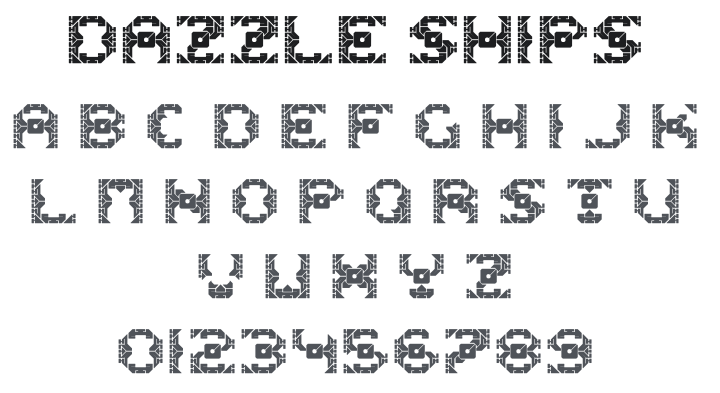
Dazzle Ships Font
About Dazzle Ships
Dazzle Ships is a wonderfully nonsensical modular display typeface built on a weird segmented LCD scheme that Ray Larabie describes as only comprehensible to space aliens. Created in 1996, its heavy, patterned letterforms feel like transmissions from an undiscovered world. Perfect for sci-fi interfaces, space-age posters, alien-themed designs, retro game graphics, and any project that embraces gloriously strange, unreadable beauty.